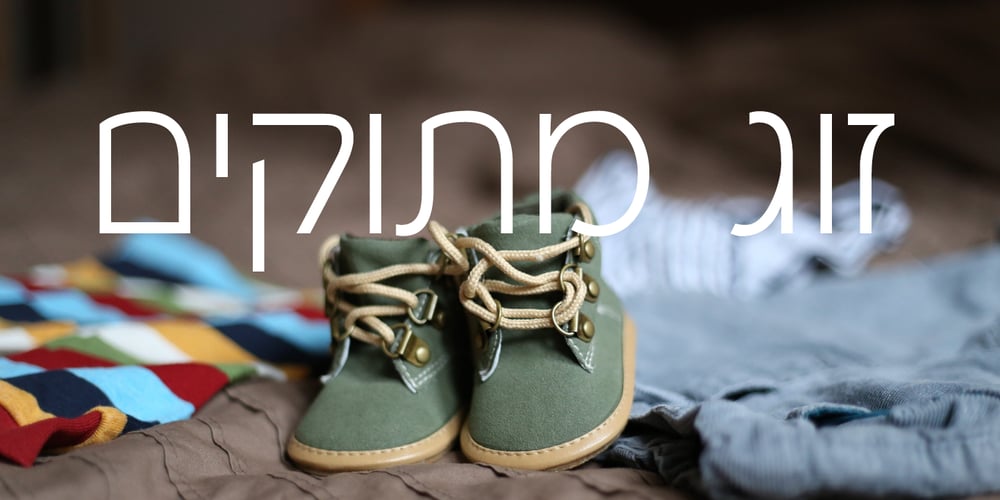
Merchaot MF Font Family was designed by Zvika Rosenberg and published by Masterfont. Merchaot MF contains 4 styles and family package options. Use as body text of headlines – super elegant and formal look at any size.